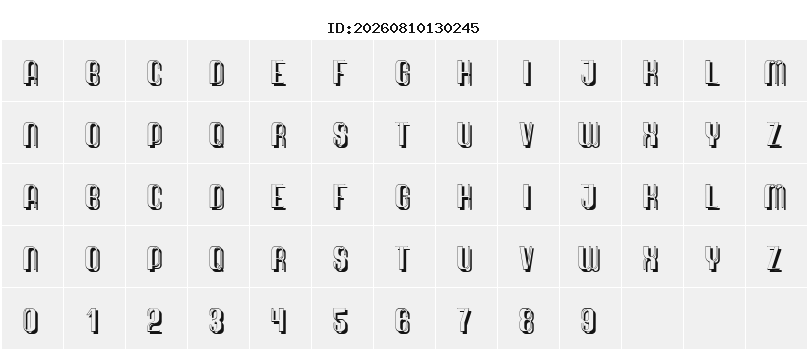
Quimbie Shaddow Preview
• Font Name: Quimbie Shaddow
• Designer: Peter Wiegel
• Manufacturer: CAT - Ing. Peter Wiegel. Wolgast
About Quimbie Shaddow.ttf
Quimbie Shaddow.ttf is a modern, elegant sans-serif font designed for ultimate readability and visual harmony. Perfect for branding, headlines, web design, and print materials.